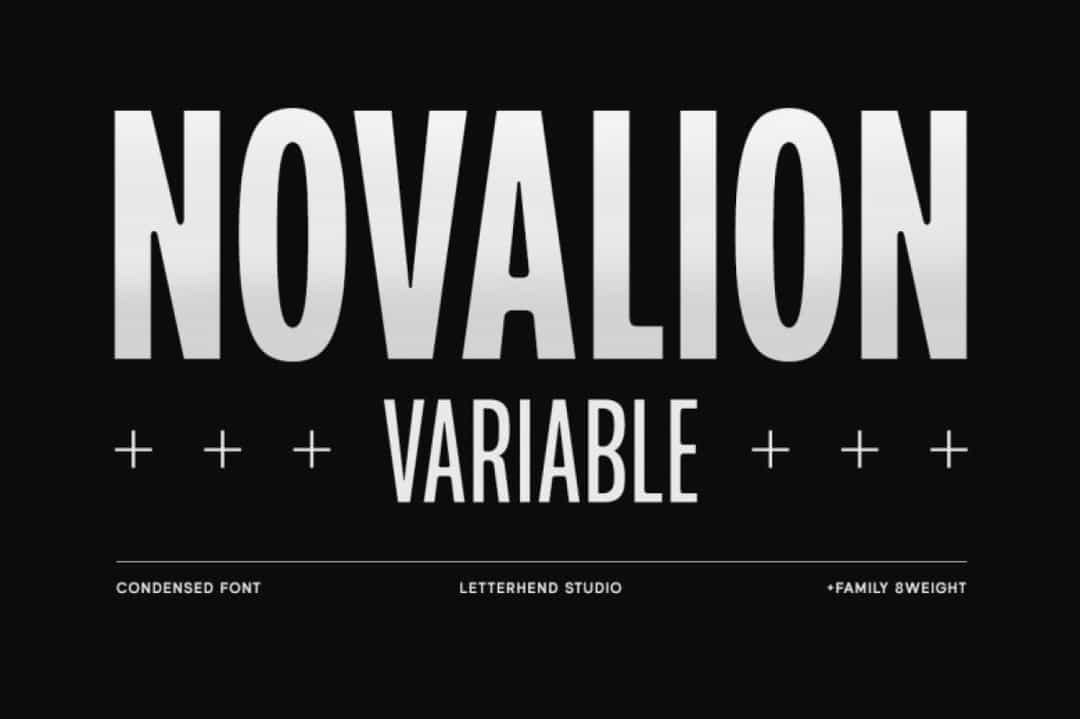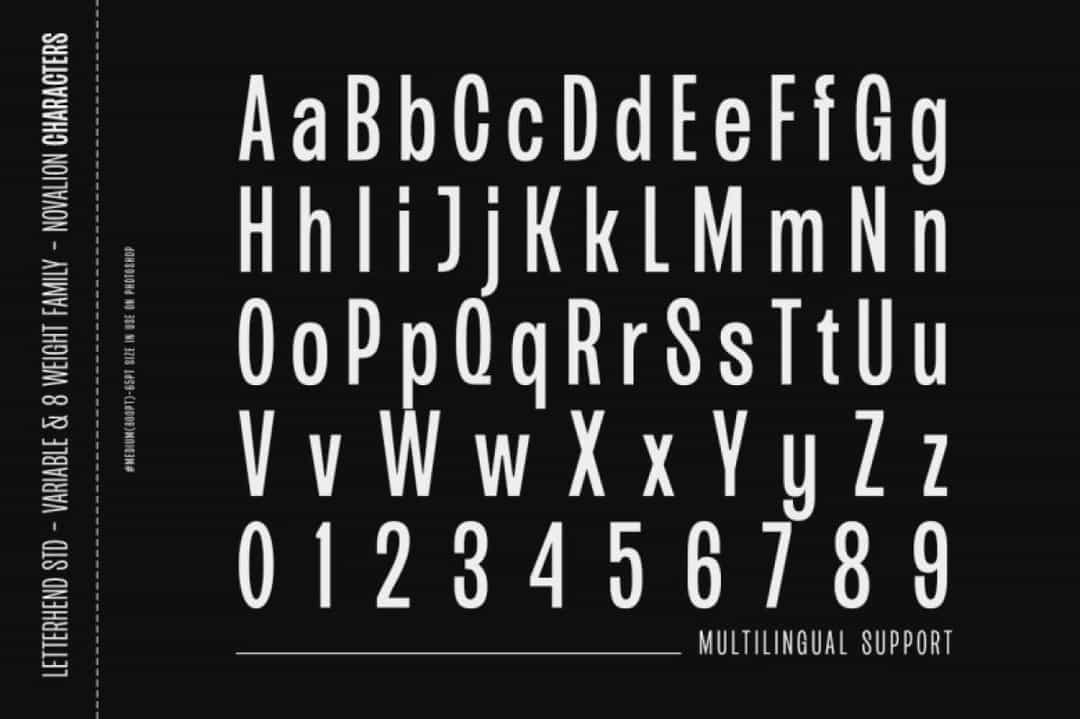
Novalion is an elegant condensed variable sans serif font that comes equipped with eight weight options that you can play around with to suit any design – be it striking headlines or effective taglines – it doesn’t matter.